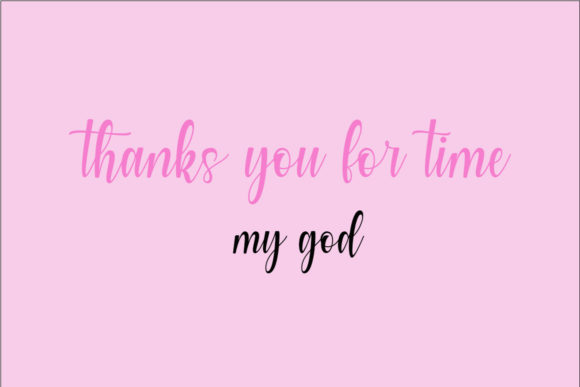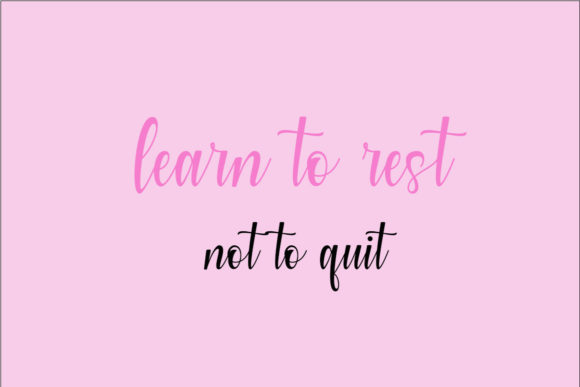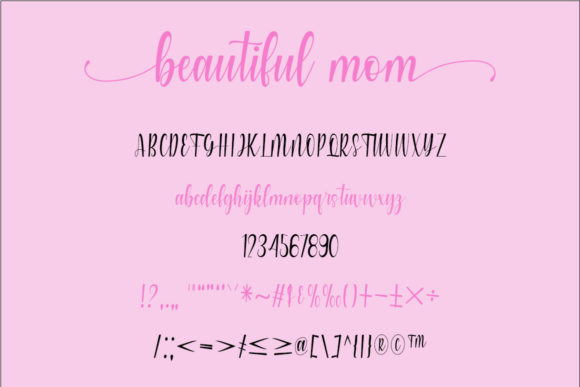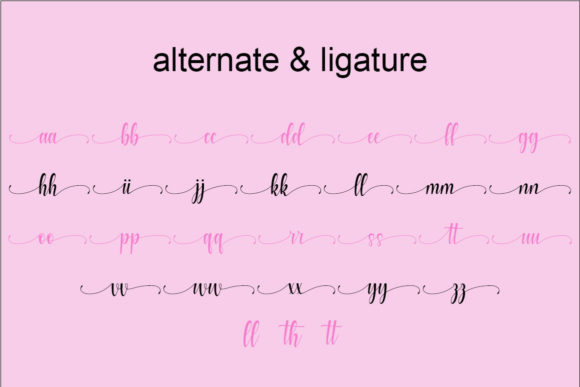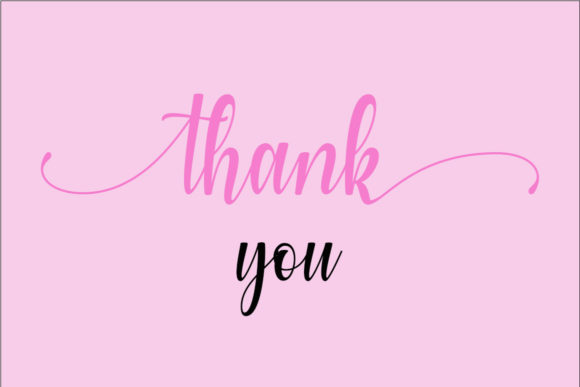
Beautiful Mom Font
About Beautiful Mom Font
“Beautiful Mom” is an enchanting handwritten font that adds a touch of beauty to your designs. This versatile typeface is well-suited for a wide spectrum of applications, ranging from greeting cards to headlines. Its PUA encoding makes it easy to access all the glyphs and swashes, providing additional design flexibility and customization options.
The enchanting quality of “Beautiful Mom” makes it suitable for projects that require a sense of warmth, elegance, and a personal touch. Whether you’re creating greeting cards, designing headlines for a special occasion, or incorporating handwritten elements into your projects, this font offers a versatile and charming solution.
The PUA encoding ensures that users can easily access all the available glyphs and swashes, allowing for creative customization and personalization. This feature enhances the font’s flexibility, making it adaptable to various design needs and preferences.
In summary, “Beautiful Mom” is more than just a font; it’s an enchanting handwritten typeface that brings a sense of beauty and versatility to your projects. Whether you’re working on greeting cards or headlines, the font’s charm and PUA encoding make it a valuable asset for designers looking to add an enchanting touch to their creations.